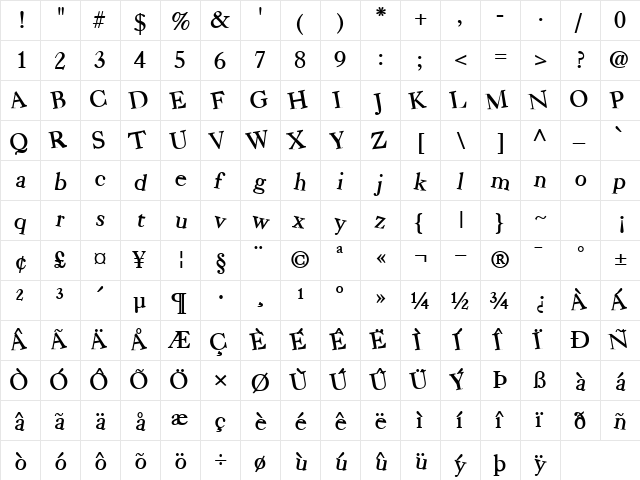
BearMarketGear7 Bold
Design Context for BearMarketGear7 Typeface
BearMarketGear7 offers clean, dependable letterforms without strong stylistic allegiance, making it a practical choice for designers who need flexibility. Its bold stroke weight gives it real presence on the page.